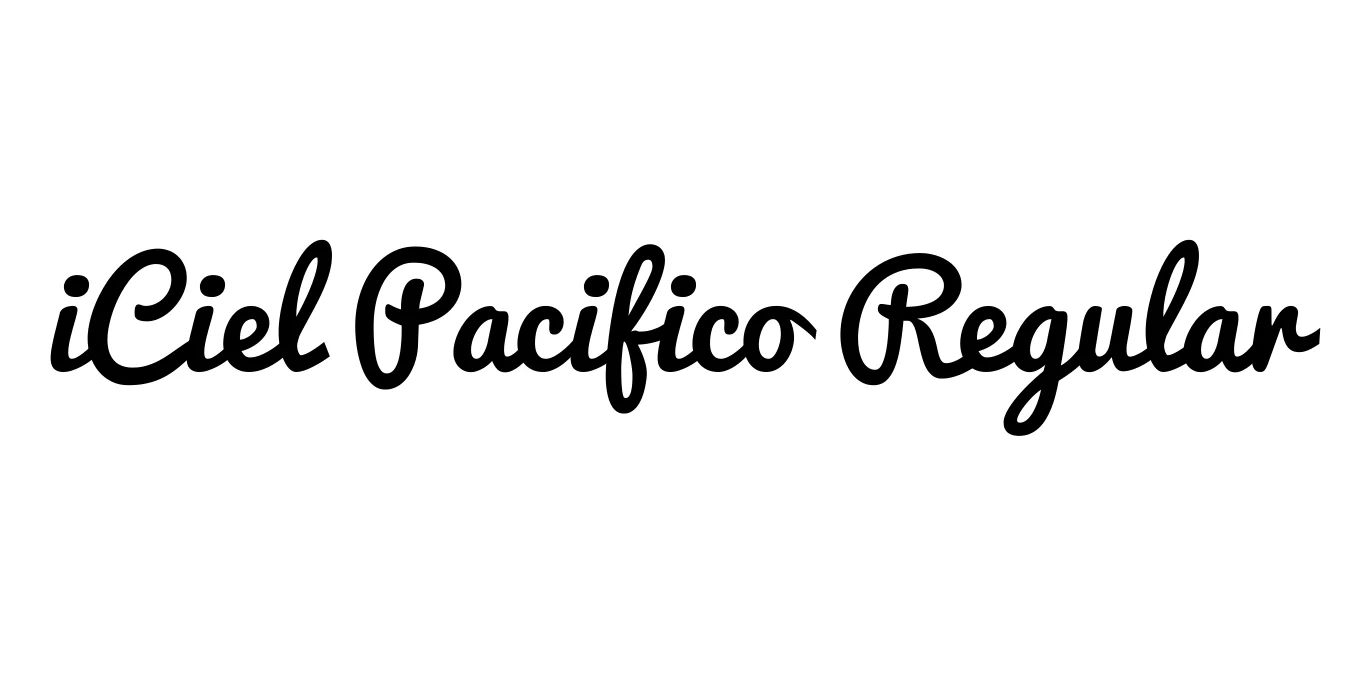
iCiel Pacifico Regular
Designed by Vernon Adams (iCiel modification)
iCiel Pacifico Regular is a Vietnamese-supported adaptation of the classic Pacifico font, which was originally created by Vernon Adams in 2011. This font is famously inspired by 1950s American surf culture, capturing a laid-back, sun-drenched aesthetic through its fluid brush strokes and bold, interconnected letterforms. The iCiel version specifically refines the character set to provide flawless typography for the Vietnamese language while maintaining the original's rhythmic flow.
Since its release, the font has become a staple in web design due to its high legibility and friendly personality. It is particularly effective for projects that require a retro or vintage touch without sacrificing modern clean lines. Whether used for digital media or high-quality print, iCiel Pacifico Regular remains one of the most popular script typefaces for designers seeking a casual yet professional look.
iCiel Pacifico Regular Best Uses
Excellent for logos seeking a 1950s retro or surf-inspired aesthetic.
High impact for hero banners and casual blog titles.
Popular choice for screen-printed t-shirts and lifestyle merchandise.
Perfect for social media graphics and friendly promotional materials.